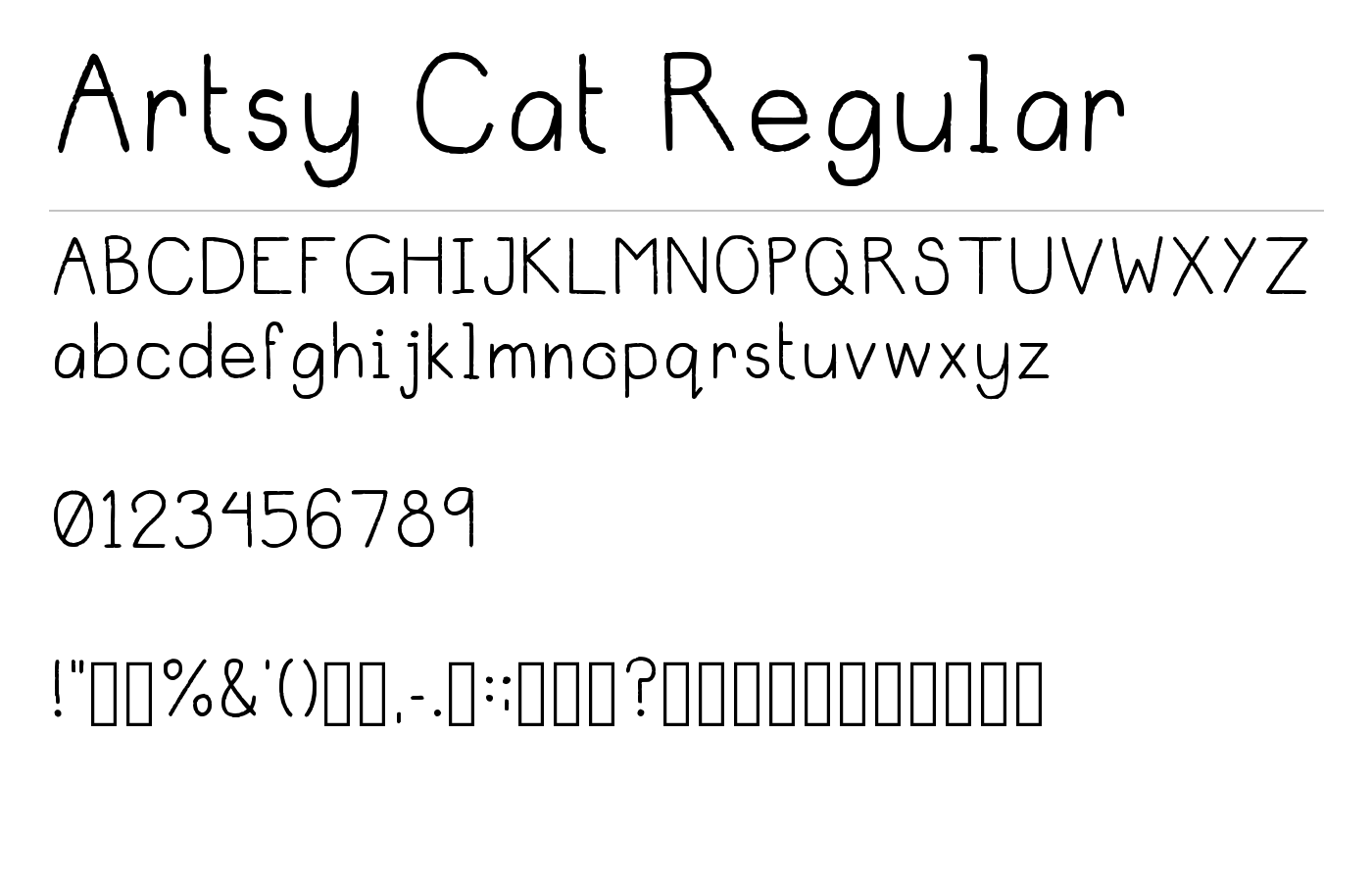
Artsy Cat Regular is a playful, hand-drawn sans serif font with a whimsical and organic feel. Its irregular strokes and slightly quirky letterforms give it a friendly, informal personality, making it perfect for creative projects, children’s books, casual branding, and fun invitations. This font works best in headlines or short text where its charming character can shine.
Artsy Cat Regular Font
About Artsy Cat Regular Font